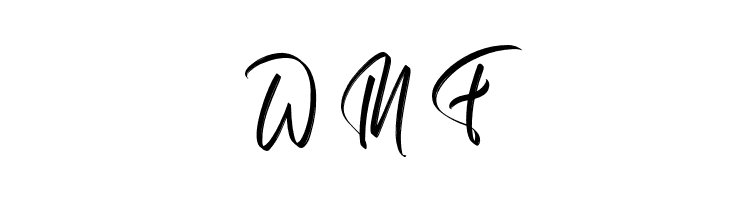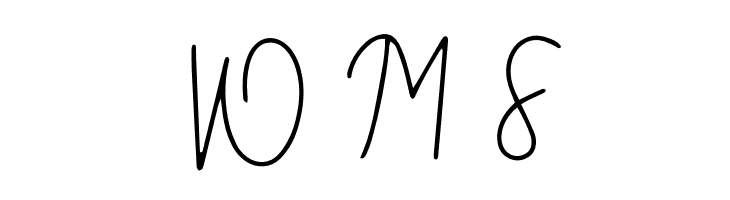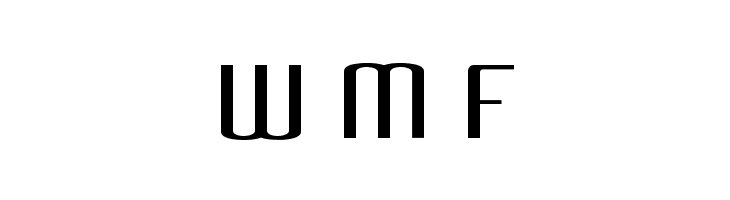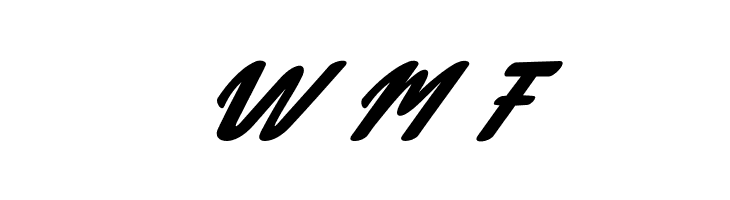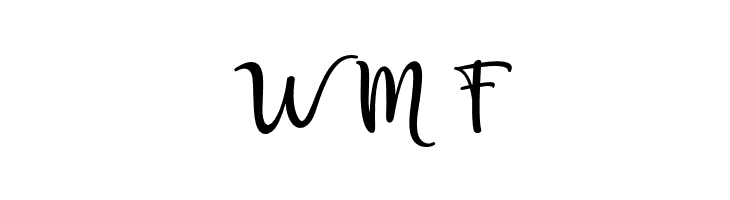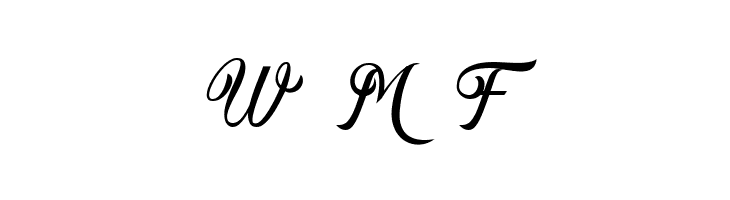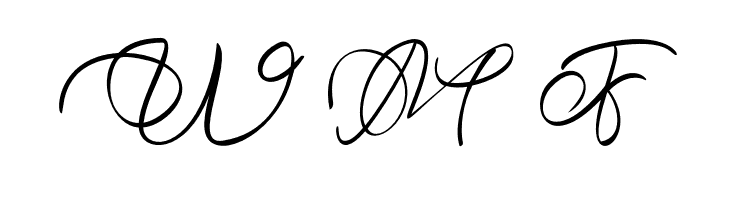
A flowing, elegant script font with ornate uppercase and smooth lowercase letters.
A dynamic handwritten font with fluid strokes and playful elegance.
A delicate and flowing script font with elegant, cursive letterforms.
An elegant and flowing script font with graceful, cursive letterforms.
A flowing, elegant script font with dynamic, cursive strokes.
A modern, geometric font with a sleek, condensed style.
A bold, textured brush script font with a handcrafted, artistic feel.
A playful, elegant script font with a handwritten style.
A playful and artistic script font with fluid, continuous strokes.
A bold, italicized font with a modern, futuristic design and tight spacing.
A bold, geometric font with a futuristic and dynamic design.
A playful and artistic script font with decorative swashes and a handwritten feel.
A flowing, cursive script font with elegant loops and swashes.
A cursive script font with elegant, flowing characters and a natural handwriting style.
An elegant script font with flowing, delicate strokes and ornate details.
An elegant script font with flowing, cursive style and intricate swashes.
A bold, expressive handwritten font with elegant swashes and flourishes.
An elegant script font with intricate swashes and flowing strokes.
A lively and elegant script font with fluid, connected letterforms.
A playful and elegant script font with a hand-drawn appearance.
A playful and elegant script font with flowing, cursive letters and modern swashes.
A bold, playful script font with smooth, flowing curves.
A bold, cursive font with fluid, connected characters and smooth curves.
A bold, cursive script font with a dynamic and flowing style.
An elegant, flowing script font with bold, cursive strokes.
A flowing, cursive script font with elegant, connected strokes.
A playful and elegant cursive font with interconnected strokes.
A playful, cursive font with a handwritten, whimsical style.
An elegant and sophisticated cursive script font with ornate uppercase and smooth lowercase letters.
An elegant and flowing script font with intricate loops and swashes.
A bold, flowing script font with elegant cursive letterforms and playful swirls.
A lively handwritten font with fluid strokes and a dynamic style.